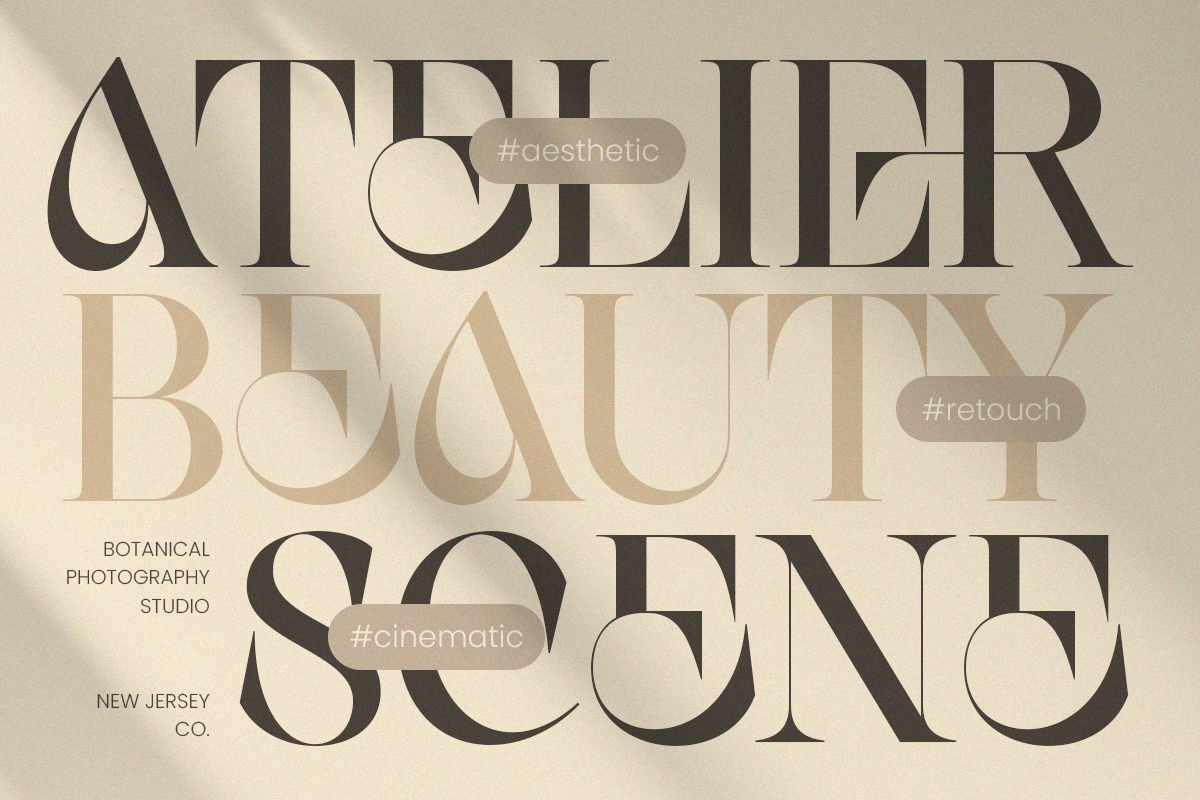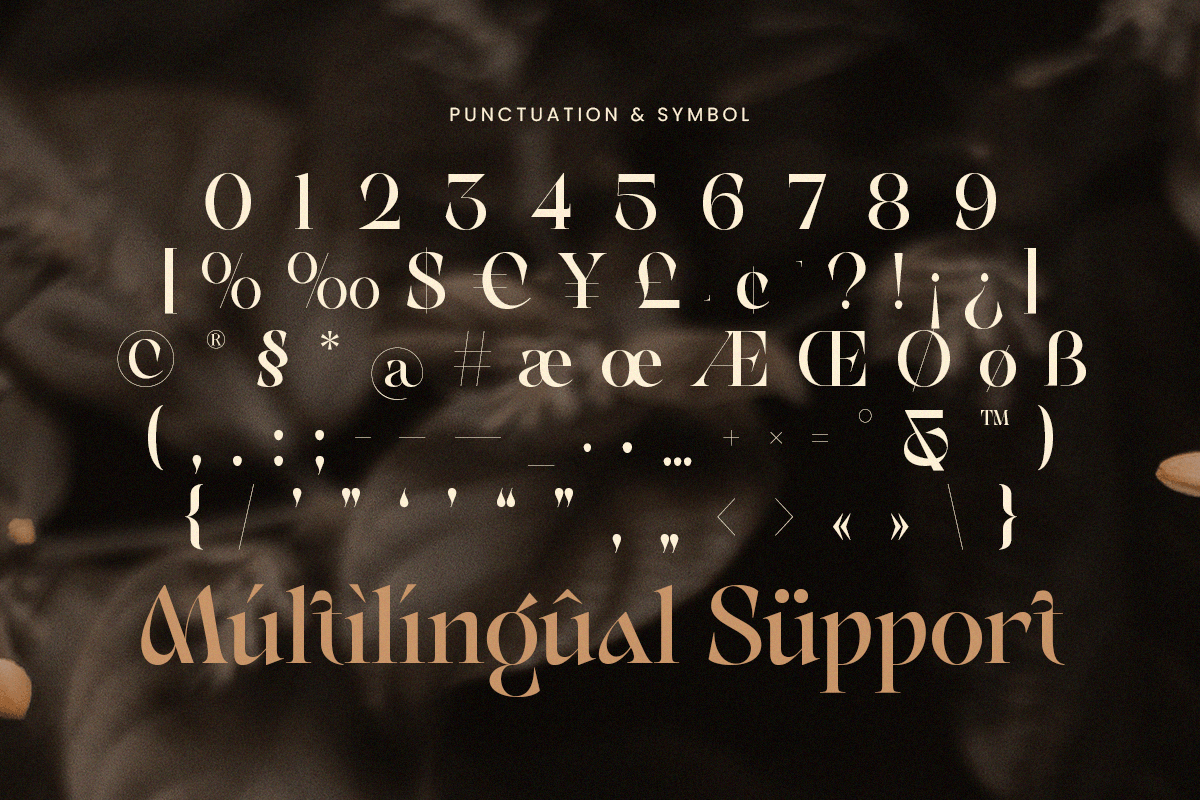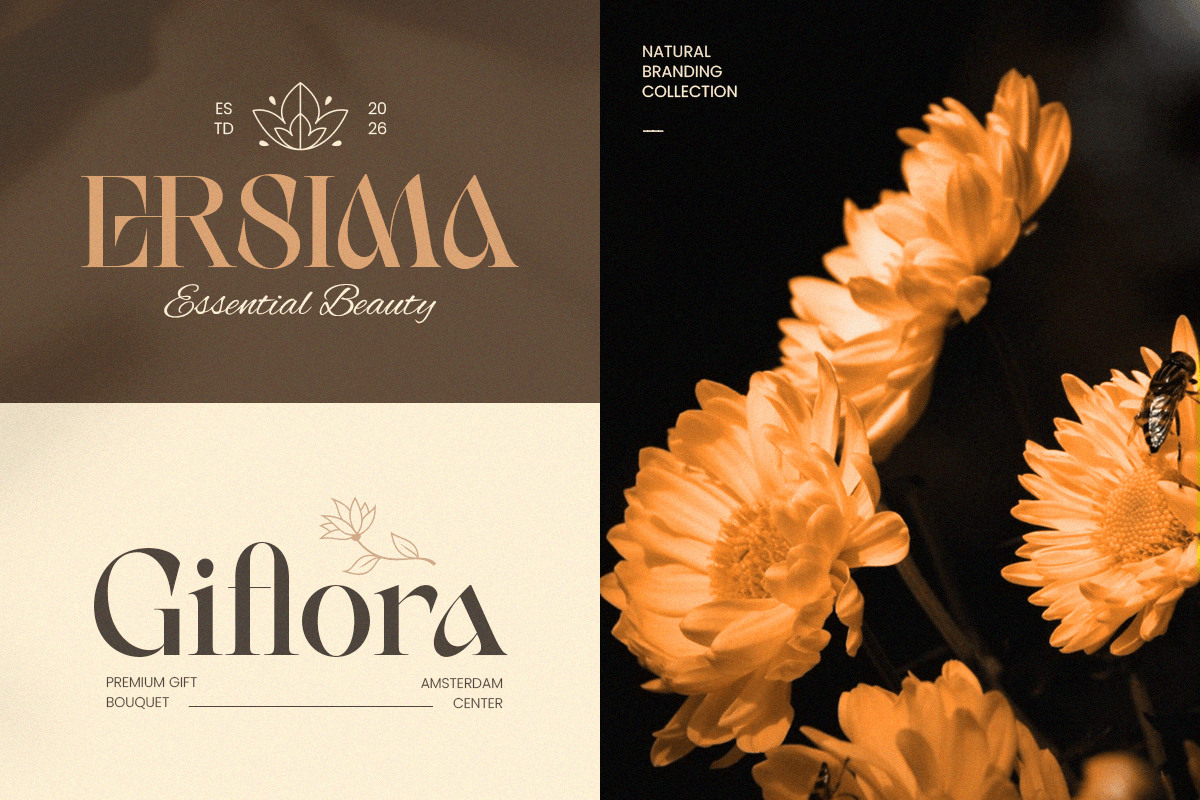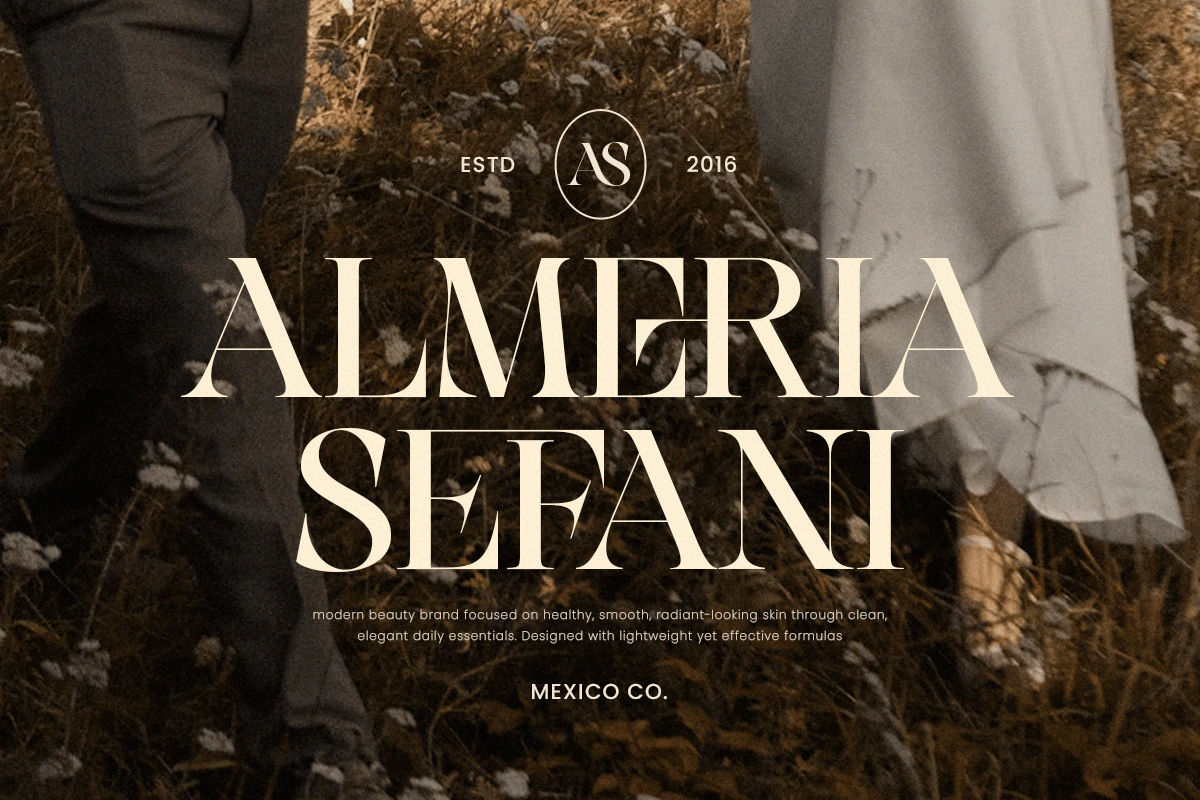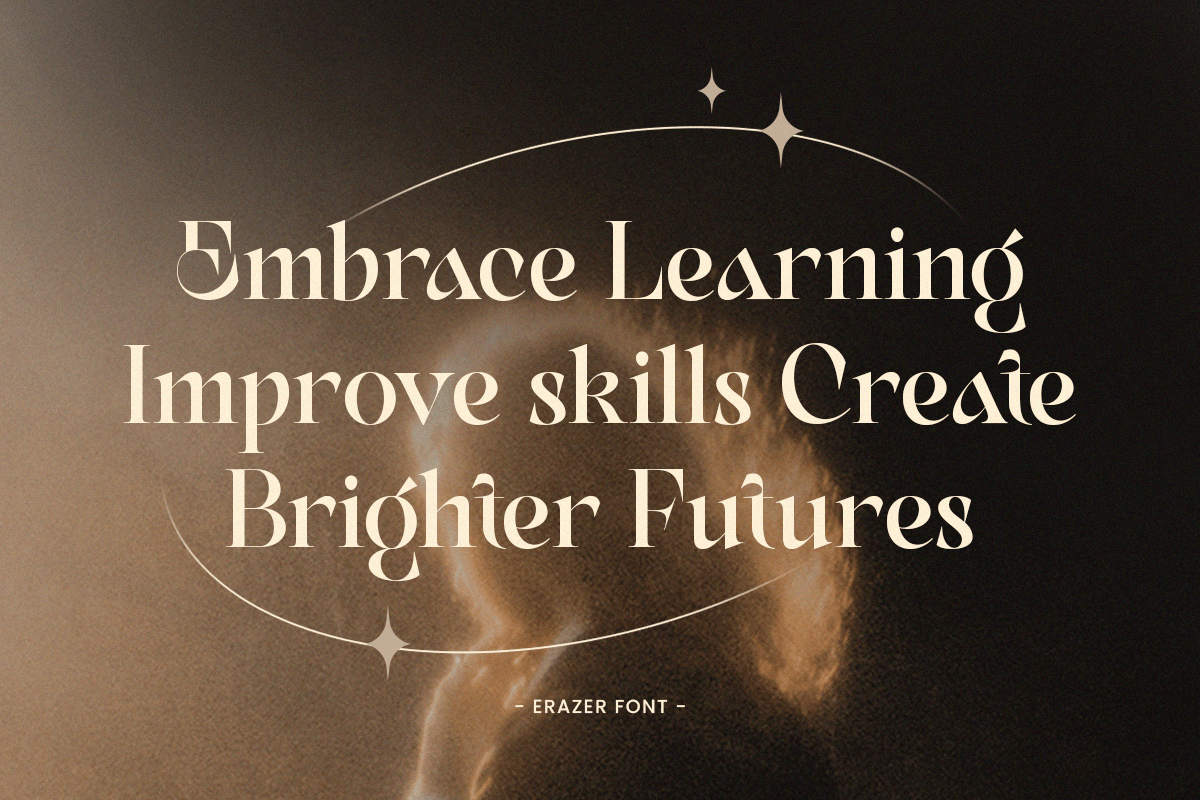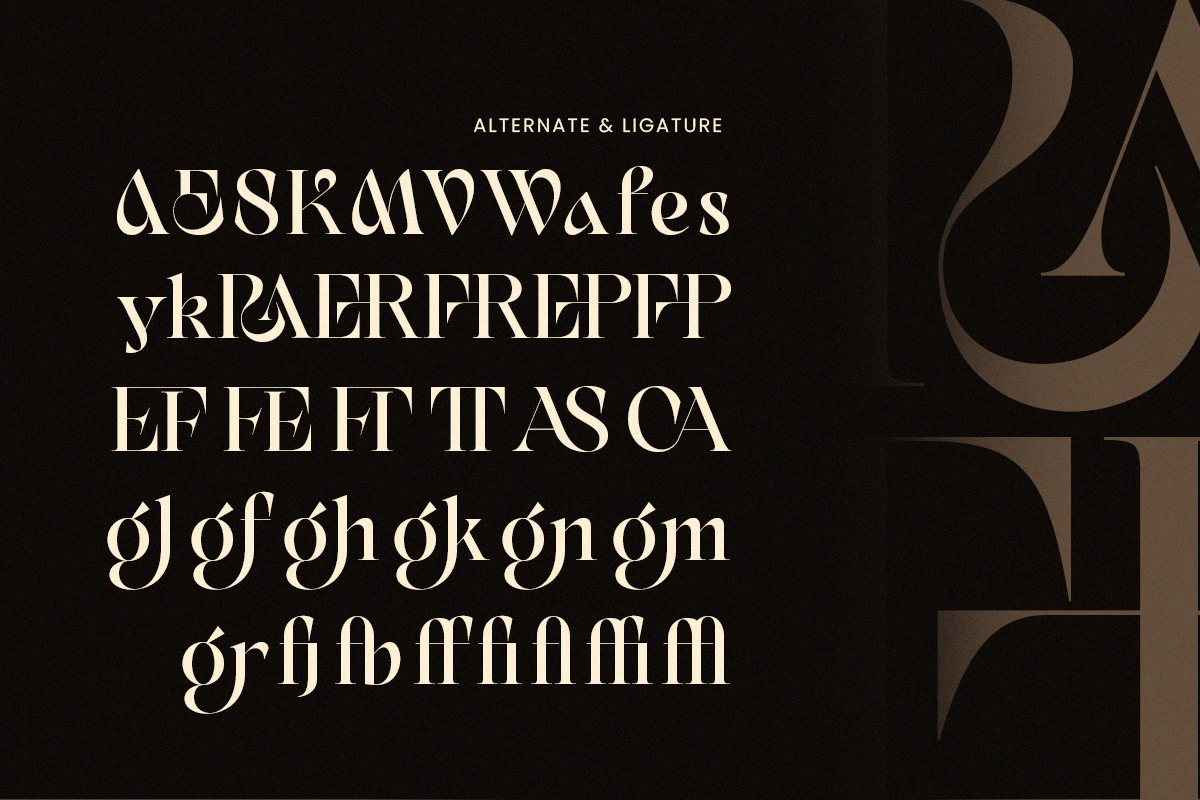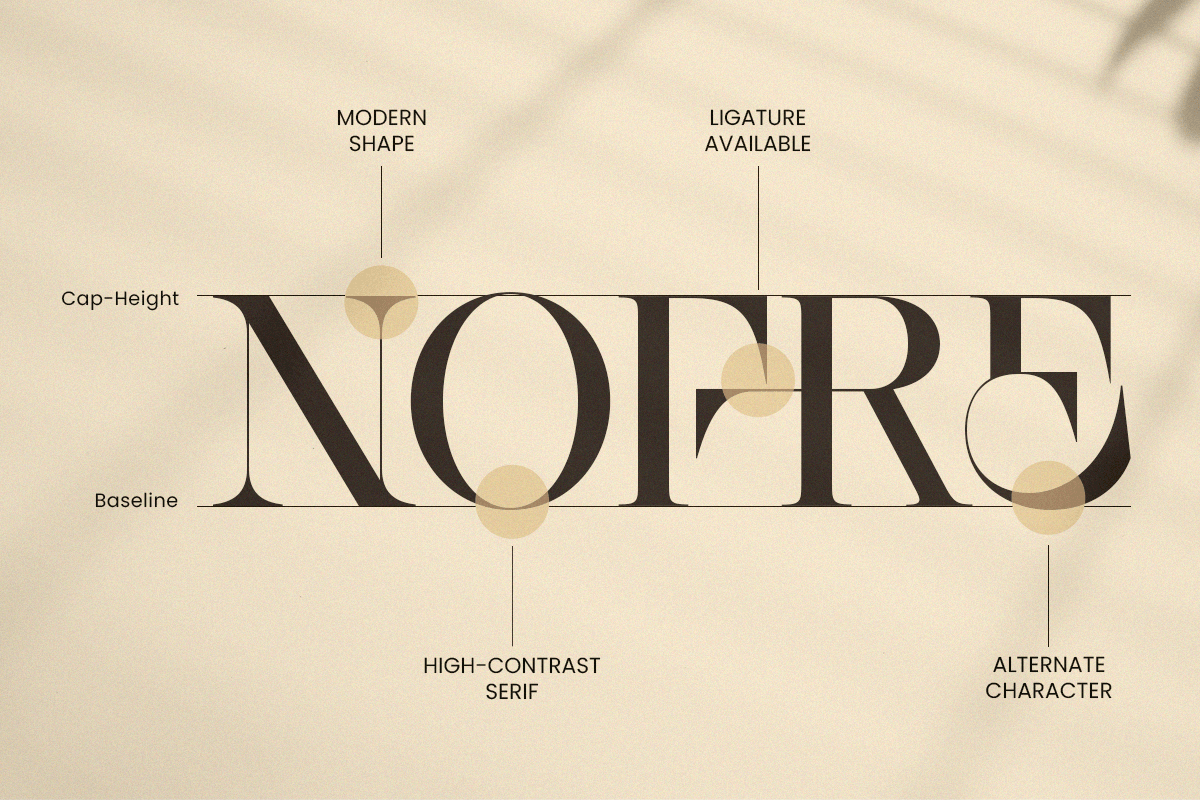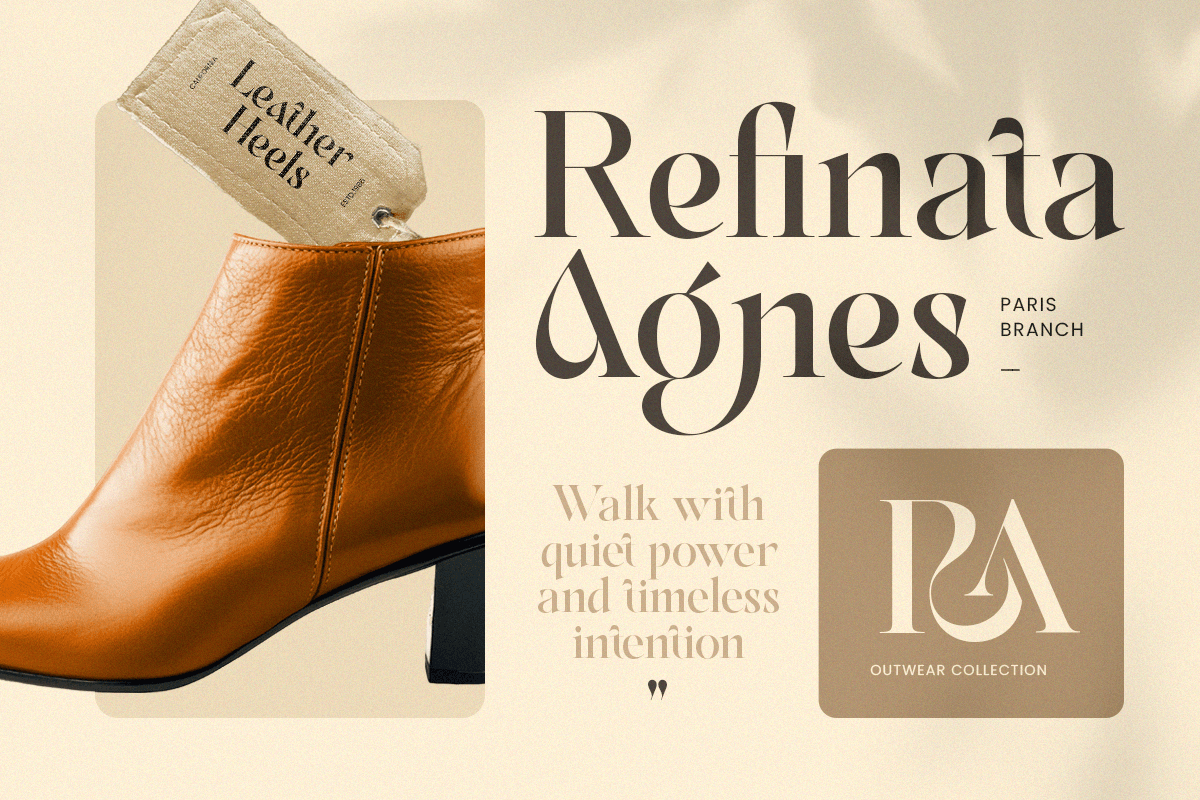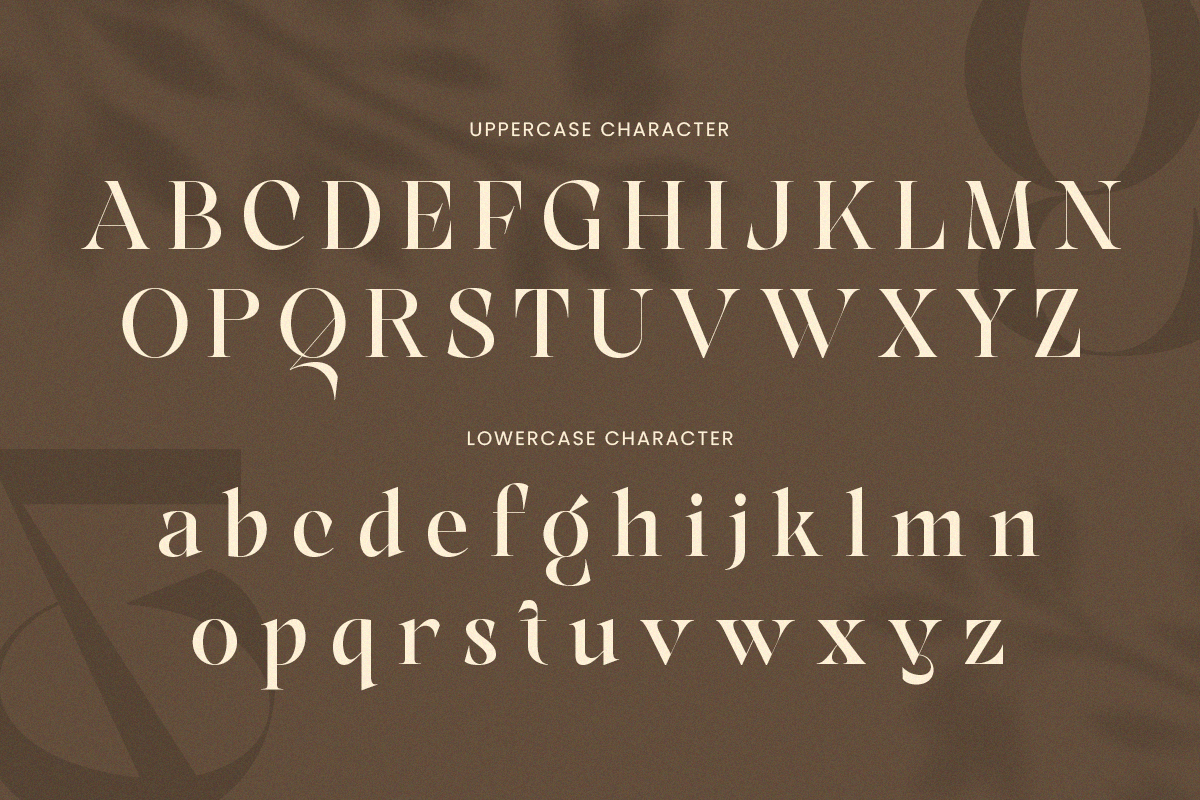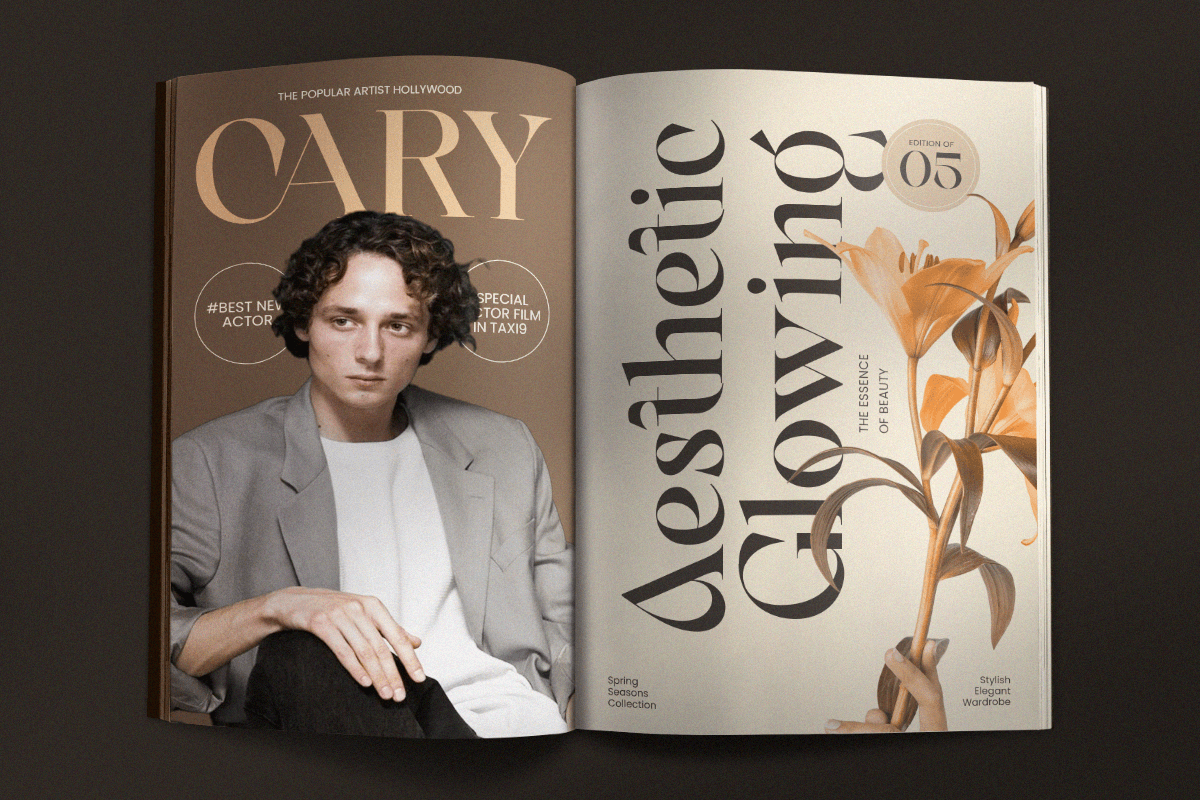
Erazer – Luxury High Contrast Serif
ERAZER is a luxury high contrast serif font designed to deliver bold elegance with refined sophistication. Built with striking contrast between thick and thin strokes, this typeface creates a dramatic, high-end tone that feels glamorous, editorial, and instantly premium.
Made for elevated branding, ERAZER works beautifully across logos, wordmarks, fashion campaigns, magazine headlines, website headers, packaging, labels, invitations, and premium social media graphics. Its high-contrast structure adds visual drama and luxury flair, while the serif foundation keeps the typography timeless and readable across print and digital layouts.
Whether you’re building a fashion identity, designing beauty packaging, crafting upscale editorial design, or creating premium marketing visuals, ERAZER provides a powerful serif foundation that makes every word feel exclusive, polished, and unforgettable.
Inspiration Behind ERAZER
ERAZER is inspired by luxury editorial typography and modern high-fashion aesthetics—where strong contrast, elegant rhythm, and refined structure define premium communication. The design focuses on dramatic serif presence and clean sophistication to support high-end branding and striking headline typography.
ERAZER Font Features:
- Luxury high-contrast serif letterforms with dramatic elegance
- Perfect for premium branding, fashion editorials, and upscale logos
- Strong visual impact for headlines, posters, and brand statements
- Uppercase, lowercase, numerals, and punctuation included
- OpenType features for polished professional typesetting
- Luxury logos, wordmarks, and premium brand identity systems
- Fashion editorials, magazine covers, lookbooks, and headlines
- Beauty, skincare, fragrance, jewelry, and boutique branding
- Premium packaging, labels, invitations, and elegant stationery
- Social media campaigns, websites, presentations, and marketing assets
Create striking premium visuals with ERAZER—a luxury high contrast serif font made for elegant, high-end identity design. ✨